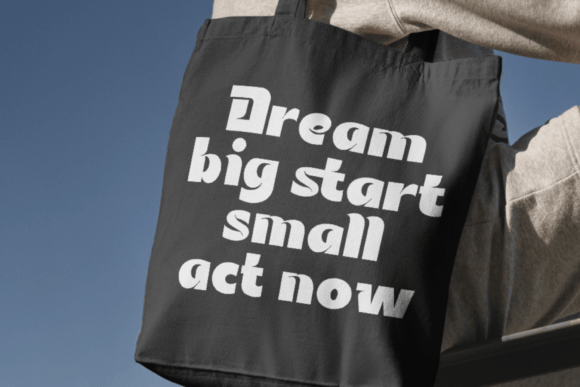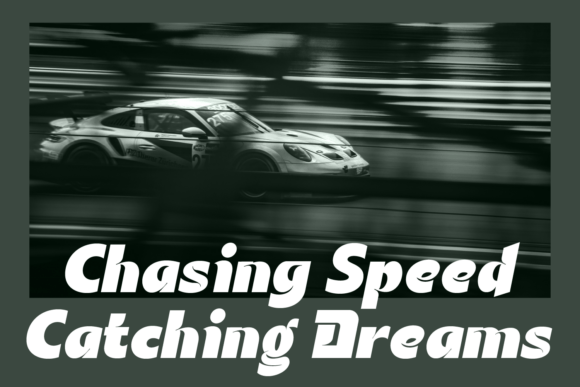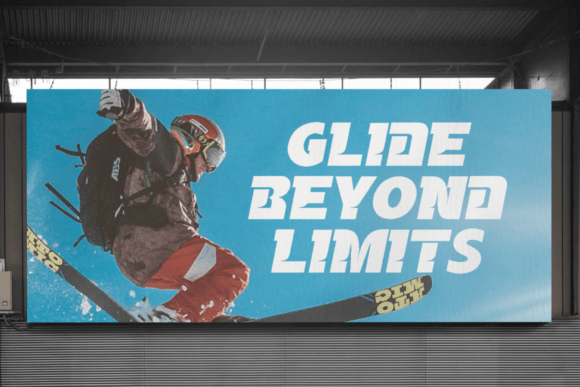
Introduction to Moverly Font
Designed with striking dynamism, Moverly is a contemporary, bold sports font.
It expertly marries robust strokes with razor-sharp angles to exude a deeply athletic aura Moverly’s muscular design harnesses energy, making it an impeccable choice for sports branding, event posters, and social media graphics.
Key Features of Moverly Font